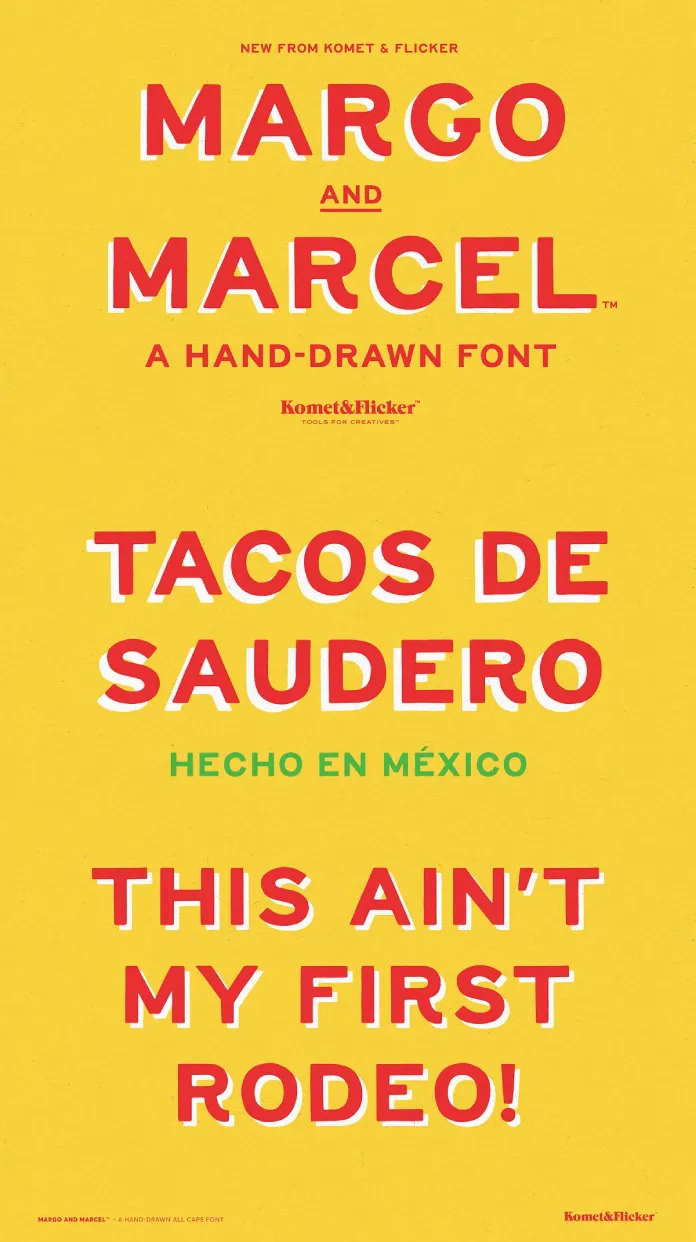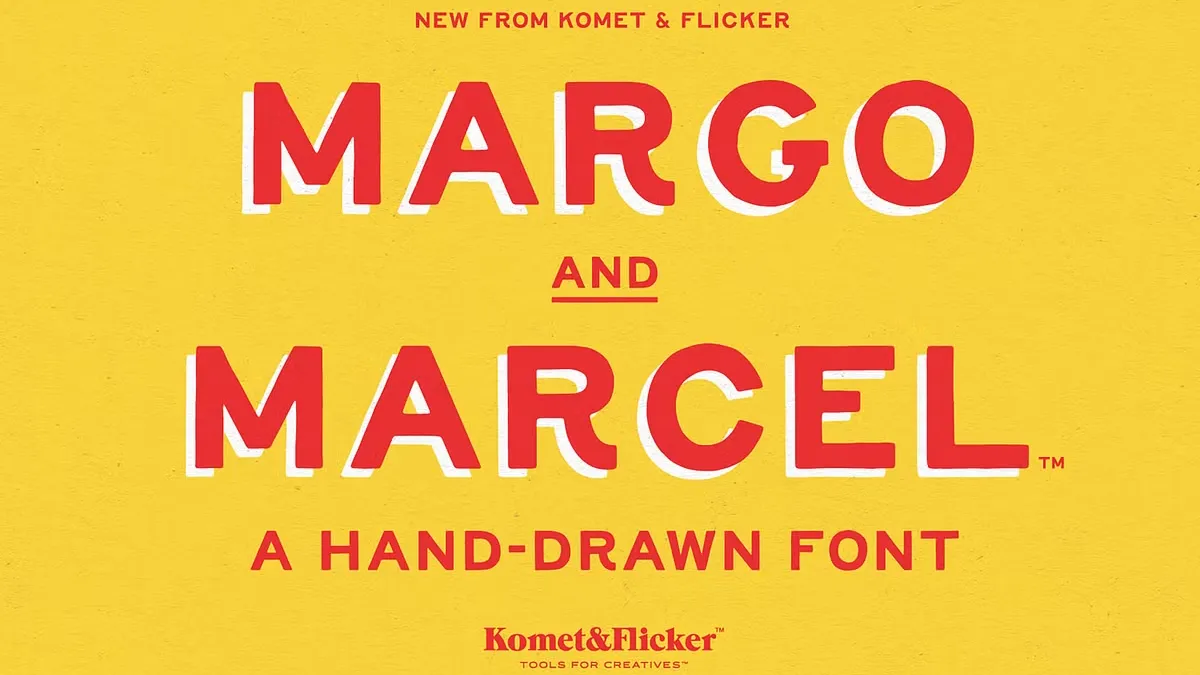
The Margo and Marcel Typeface is the Hand-Drawn Retro Font Capturing Today’s Design Spirit
The digital landscape is often dominated by pixel-perfect precision and clean, geometric lines. Yet, a distinct yearning for warmth, personality, and a human touch has emerged in modern design. The Margo and Marcel font, a hand-drawn retro typeface by Komet & Flicker, answers this call directly. It is more than just a set of characters; it is a deliberate move towards approachability and charm. This all-caps font, with its friendly and down-to-earth vibe, offers a refreshing alternative to sterile digital perfection. Its casual, organic nature brings an inviting presence to any project, making it a timely and relevant choice for designers seeking to connect with their audience on a more personal level.
Understanding the Allure of Margo and Marcel
What makes a simple, hand-drawn font so compelling? The appeal of Margo and Marcel lies in its intentional imperfections. In an era of mass production, uniqueness has become a valuable commodity. This typeface delivers that by celebrating the subtle variations and organic feel of a human hand at work.
Every character in the Margo and Marcel font was crafted by hand. This process imbues the typeface with a distinct personality that cannot be replicated by purely digital means. The lines are not perfectly straight, the curves not mathematically precise. This slight irregularity is its greatest strength. It feels authentic and relatable, creating an immediate sense of warmth. Think about the difference between a printed postcard and a handwritten note. The latter always feels more personal, doesn’t it? That is the essence of what this font brings to a design. It transforms a simple message into a friendly conversation.
Beyond its core alphabet, Margo and Marcel includes thoughtful additions that significantly expand its creative potential. Alternate versions for key characters like C, G, I, J, K, Q, R, and S allow designers to fine-tune their typography, avoiding repetition and adding a more dynamic, custom-drawn feel to text.
Furthermore, the inclusion of 20 custom connecting words, such as “AND,” “THE,” and “WITH,” is a standout feature. These ligatures are designed to integrate seamlessly, creating a natural flow that enhances the hand-lettered illusion. This small detail has a significant impact, elevating the overall composition from simple text to a piece of bespoke lettering.
Why Margo and Marcel is a Smart Choice for Branding and Design
Choosing a typeface is a critical decision in any design project. The font sets the tone and communicates a brand’s personality before a single word is read. So, why are so many creatives turning to a font like Margo and Marcel?
For businesses that want to appear friendly, trustworthy, and down-to-earth, this font is a powerful tool. It is an excellent choice for logos, packaging, and marketing materials for artisanal food products, boutique shops, and creative studios. The hand-drawn quality suggests care, craftsmanship, and a personal touch—qualities that resonate strongly with modern consumers. Consider how it could transform the branding of a local coffee shop or an independent bookstore. The font immediately communicates a welcoming, community-focused vibe.
In the fast-scrolling world of social media, content needs to be visually arresting and emotionally engaging. Margo and Marcel excels here. Its charming appearance is perfect for creating shareable quotes, eye-catching post headers, and branded story templates. The friendly nature of the font makes content feel less corporate and more like a personal recommendation, which can significantly boost engagement and help content go viral. Its legibility and distinct style ensure that even in a crowded feed, your message stands out.
How to Use Margo and Marcel Font Effectively
To truly harness the power of this versatile typeface, it’s important to understand how to access its full range of features and apply it thoughtfully in your projects.
The additional glyphs and connecting words are what make Margo and Marcel truly special. Accessing them is straightforward in most professional design software.
- In Adobe Illustrator: The Glyphs panel is your gateway to all the alternates and ligatures. You can easily find it by navigating to “Type → Glyphs.” From there, you can browse and insert any character from the font set directly into your text box.
- In Adobe Photoshop: The process is very similar. Access the Glyphs panel through “Type → Panels → Glyphs Panel.” This allows you to see the entire character set and choose the perfect alternates to customize your design.
The potential uses for the Margo and Marcel hand-drawn retro typeface are vast. Here are some long-tail keyword-inspired ideas to get you started:
- Best hand-drawn font for wedding invitations: The font’s charming and personal feel makes it an ideal choice for invitations, save-the-dates, and other wedding stationery.
- Creative all-caps font for YouTube thumbnails: Its bold yet friendly appearance can make your video thumbnails more clickable and visually appealing.
- Approachable retro typeface for cafe menus: Design a menu that feels as warm and inviting as the cafe itself.
- How to create a friendly logo with a hand-drawn font: Use Margo and Marcel as the foundation for a logo that communicates authenticity and charm.
Margo and Marcel’s Enduring Appeal
By embracing its imperfections and leveraging its extensive character set, you can use Margo and Marcel to create designs that are not only visually appealing but also deeply human and resonant. It is a font that doesn’t just speak; it connects.